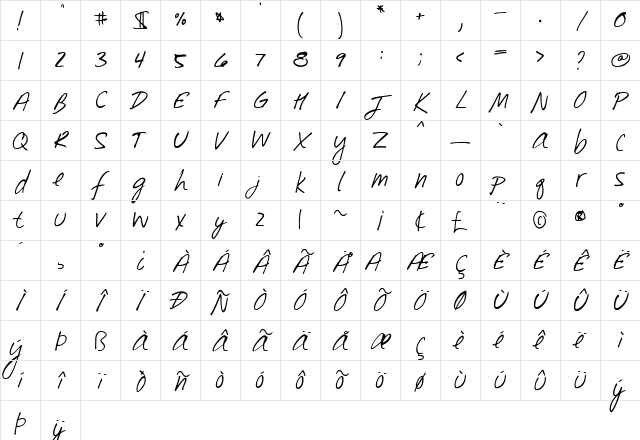
Southpaw Regular
Foundry: Tyler Finck / Allison Usavage / AWP
Designer: Tyler Finck / Allison Usavage / AWP
Design Context for Southpaw
Southpaw is a composed and adaptable typeface that performs quietly and consistently across a wide range of design contexts.